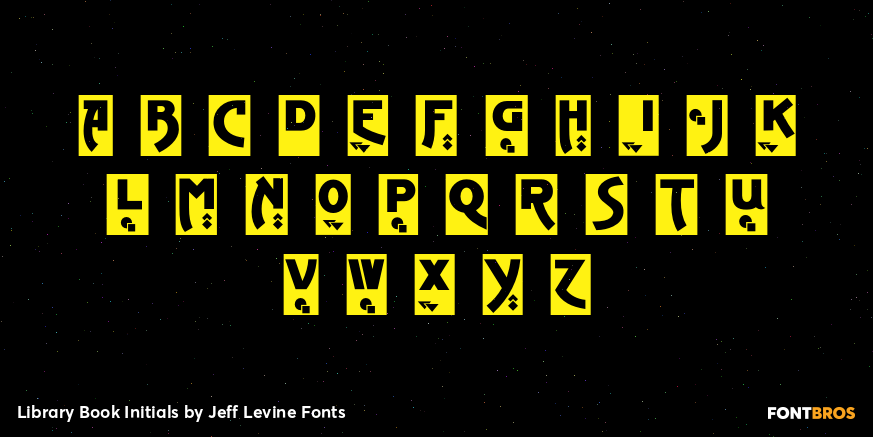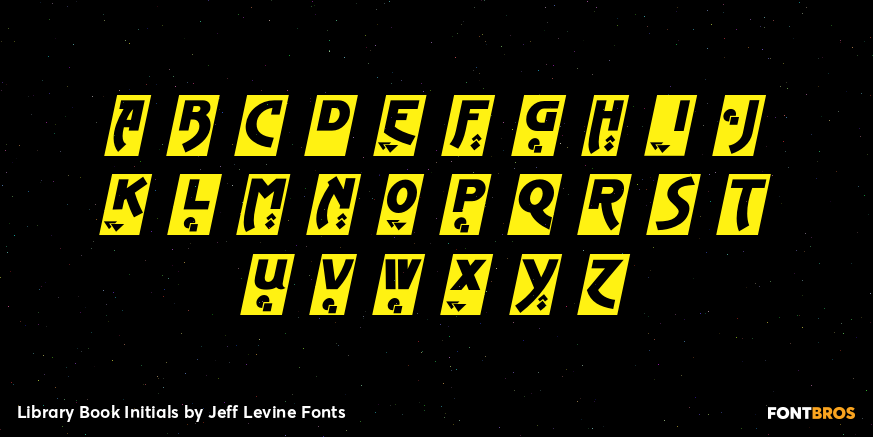
Library Book Initials
Library Book Initials JNL was modeled from examples of Sidney Gaunt's Publicity Initials; originally sold in metal type by Barnhart Brothers and Spindler as a companion to the Publicity Gothic typeface.
The smoothed-down lines of the original characters allow for these initials to balance better when set against complementary type faces.
A regular version is on the upper case keys, with an oblique version on the lower case keys.